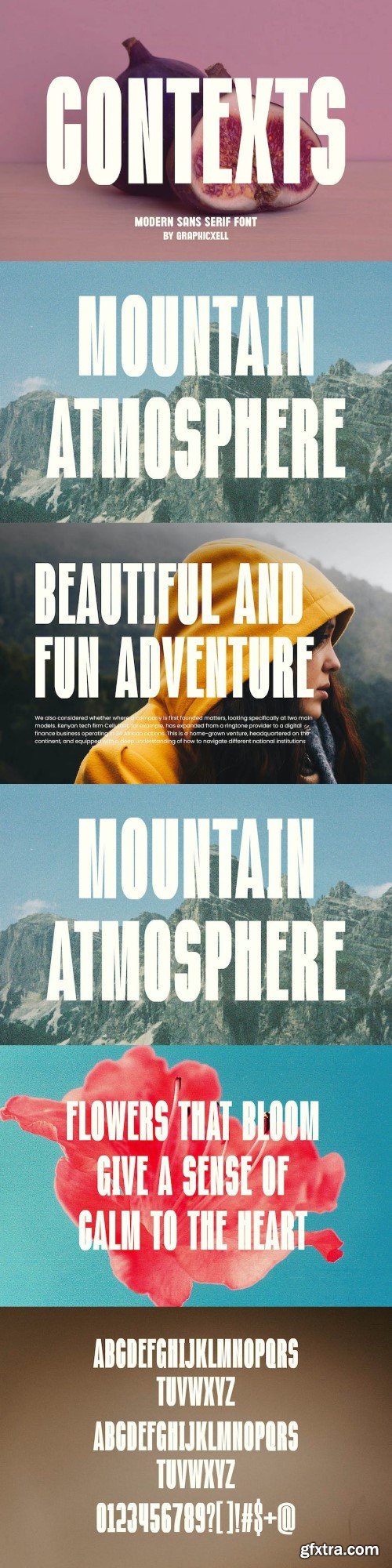
现代 sans-serif 字体类型face
inspired by the famous minimalist logo perfect for the purposes of designing templates, brochures, videos, advertising branding, logos, invitation, layout design, elegant crafting, beauty design and other